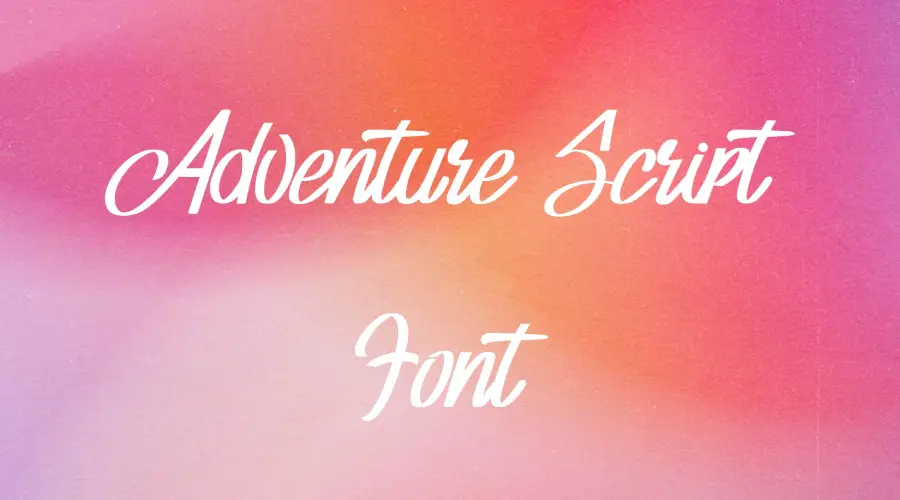
Adventure Script Font
To have an exciting journey, you don’t have to travel far; traveling and exploring new places is exciting, but staying at your desk with your laptop can be just as exciting with the Adventure Script Font and proper mindset. We are introducing Adventure, a bold script typeface that adds a modern touch to your projects, and we’re excited to share it with you. Windows, Apple/Mac, Linux, Cricut, Silhouette, and other cutting machines are all compatible with the beautiful Script and Brush Font.
Halymunt Studio created it and shared it. With the uppercase letters’ befuddling curves and confident strokes, this Font combines stylish swashes and alternates and creates an elegant calligraphic presentation suitable for stationery and branding designs. This Font is perfect for high-end products such as accessories and a casual, relaxed appearance suitable for movie posters, social media posts, handwritten quotes, apparel designs, and so on. A set of lowercase letters, numbers, and symbols is included with this multilingual Typeface, available in TTF and OTF formats.
It’s an excellent choice for a special occasion or project, and it goes well with different font styles. Adventure is a sleek, sophisticated, modern, and clean style that is sure to draw attention to your logos, brand photography, handwritten phrases, product packaging, merchandising, and social media posts, among other things. The font looks great with almost every color combination.
Adventure script font has a natural and organic look that is sure to catch the eye of anyone who sees it. It is a beautiful and unique font perfect for designing logos, posters, and other creative projects. With its Open-Type features, the Adventure script font offers a wide range of design possibilities.